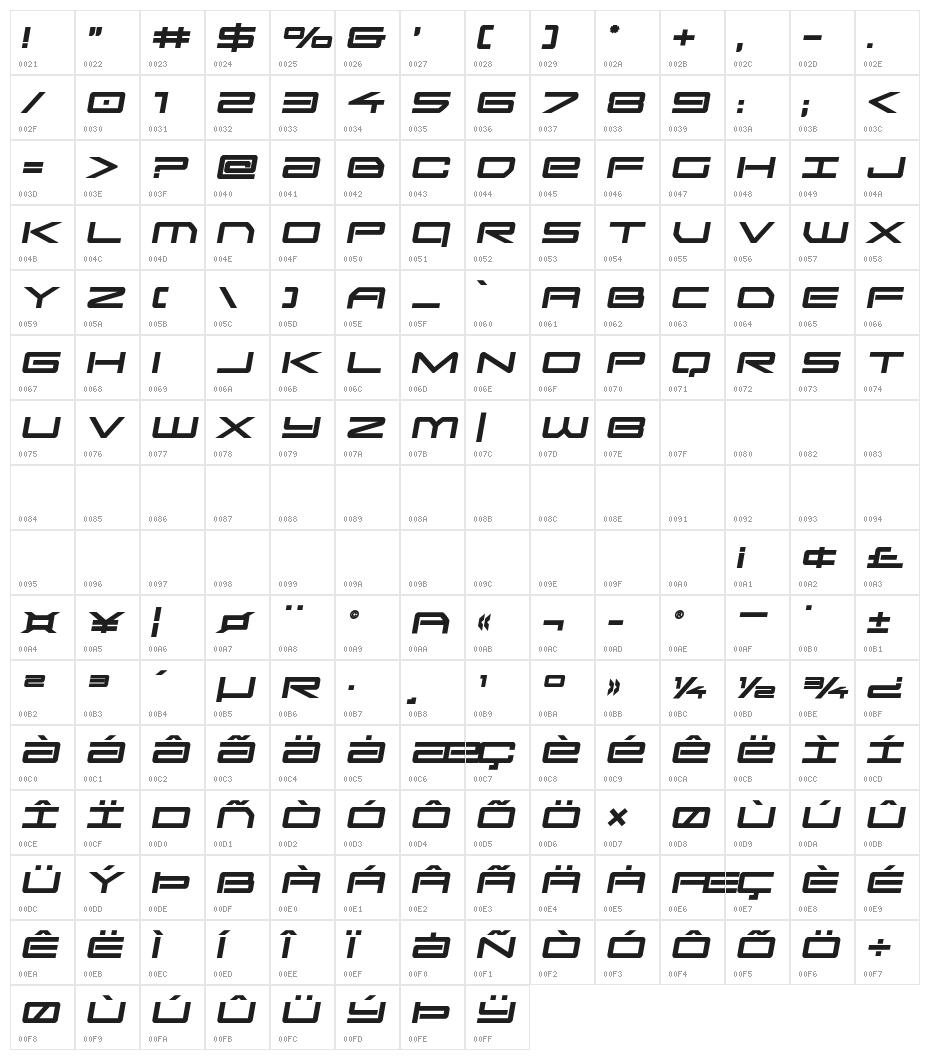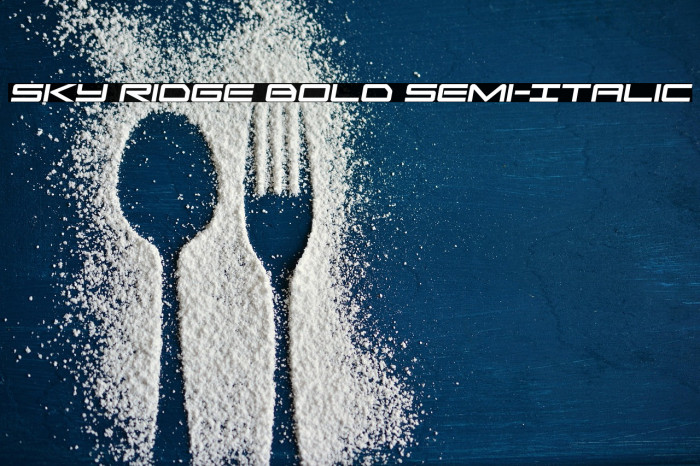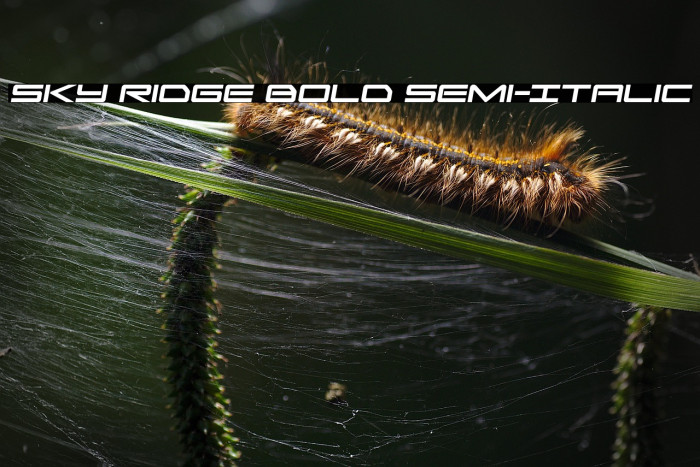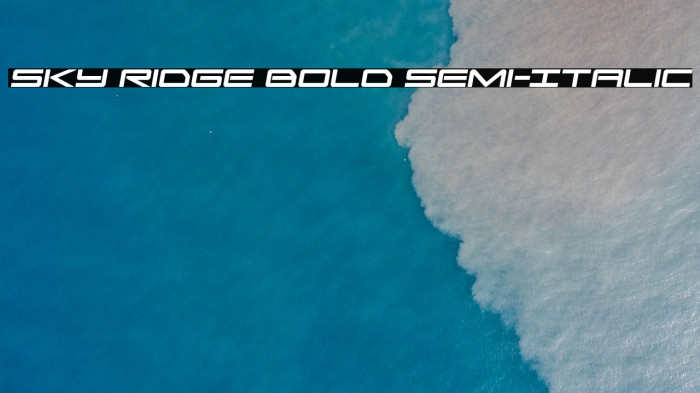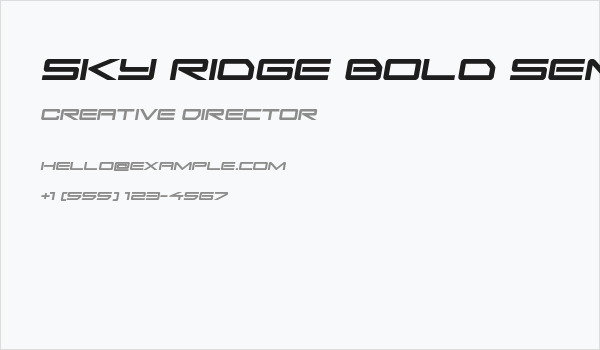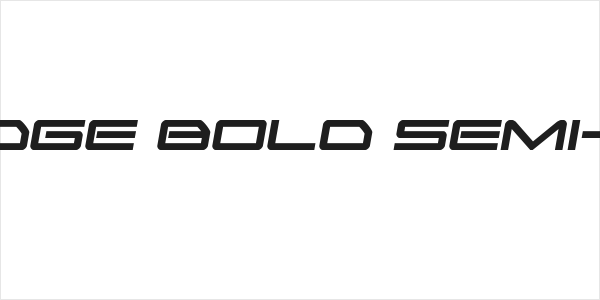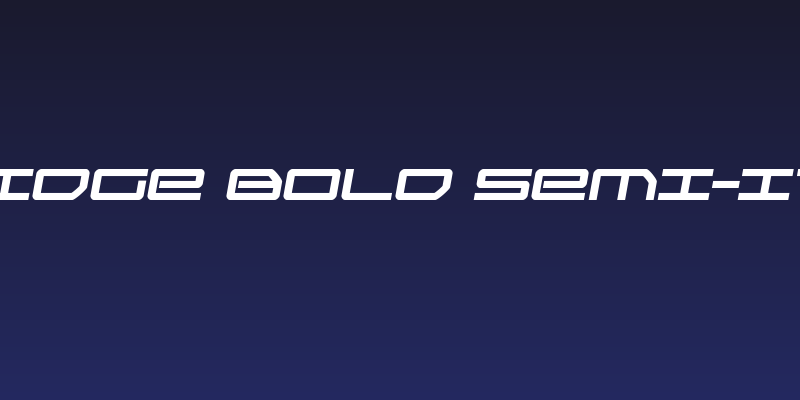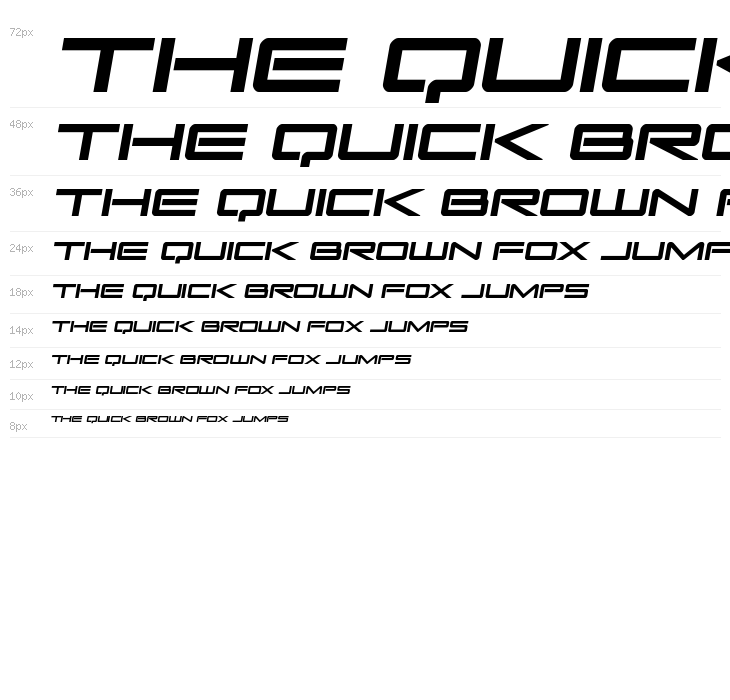
Sky Ridge Bold Semi-Italic Font
Sky Ridge Bold Semi-Italic Description
This font features a futuristic and angular design, characterized by its bold and semi-italic style. The letterforms are sleek and geometric, with sharp edges and a forward-leaning posture that conveys a sense of motion and modernity. The uppercase and lowercase letters maintain a consistent style, while the numerals and special characters complement the overall aesthetic. The font's unique style makes it stand out, suitable for projects that require a contemporary and dynamic look.
| Proposed Projects | Ideal for technology branding, sci-fi posters, video game titles, and modern advertising campaigns. |